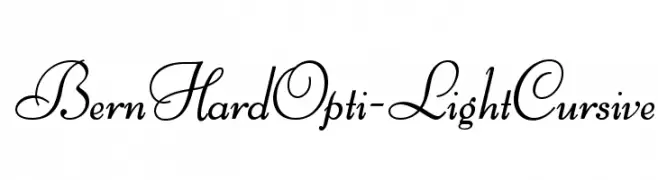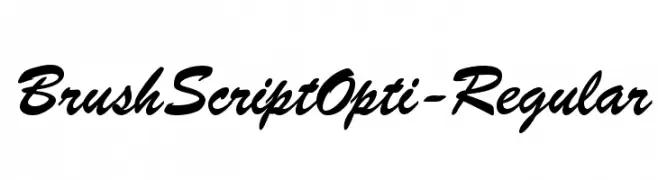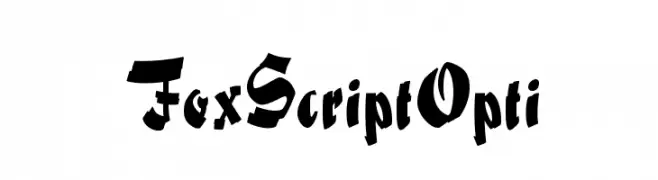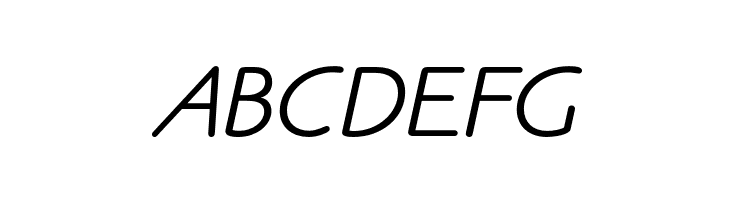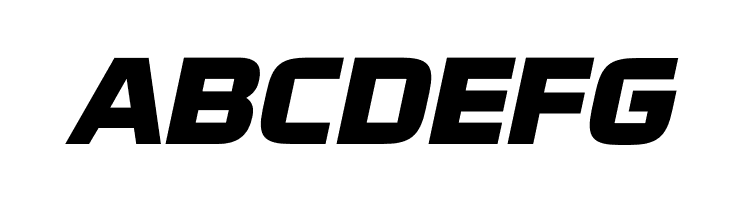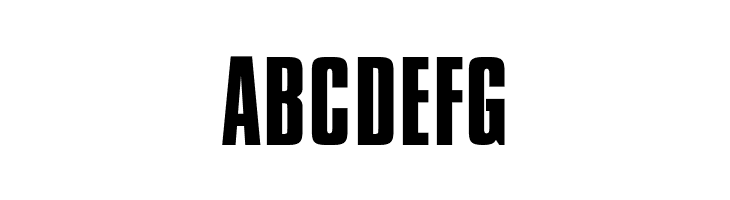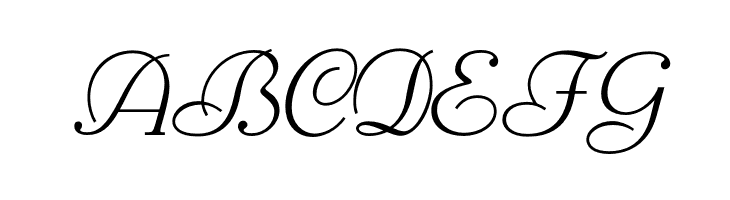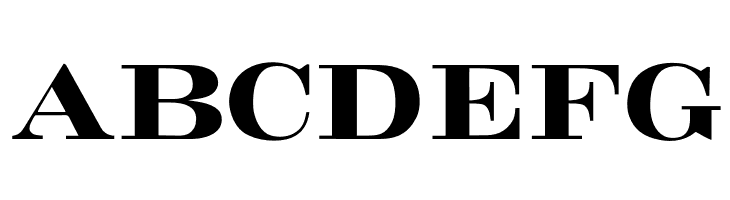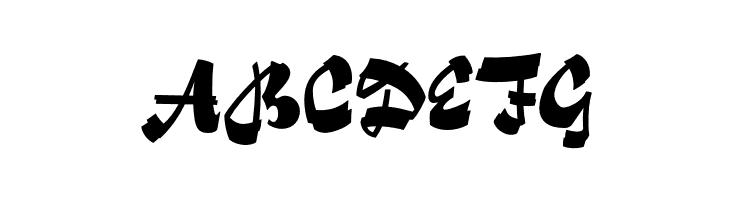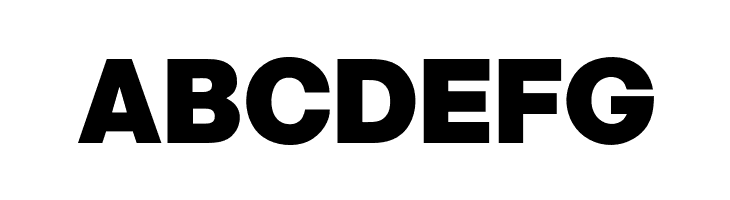
A sleek, italicized font with a modern and fluid design.
A bold, italic font with a modern and dynamic style.
A bold, impactful typeface with strong strokes and tight spacing.
An elegant cursive font with flowing, interconnected characters and ornate uppercase letters.
A bold, high-contrast serif font with pronounced serifs and elegant style.
A sophisticated script font with elegant, flowing cursive characters.
A bold, dynamic script font with a gothic flair and strong presence.
A bold, modern font with thick strokes and a strong presence.
A bold, dynamic serif font with sharp angles and high contrast.
A cursive, brush-style font with a flowing, handwritten appearance.